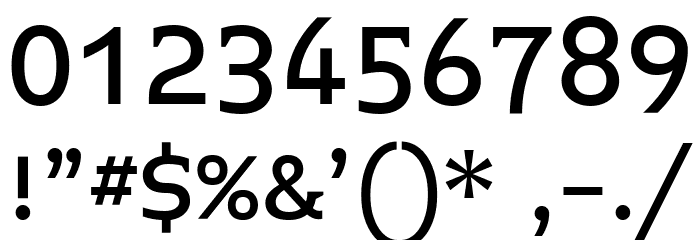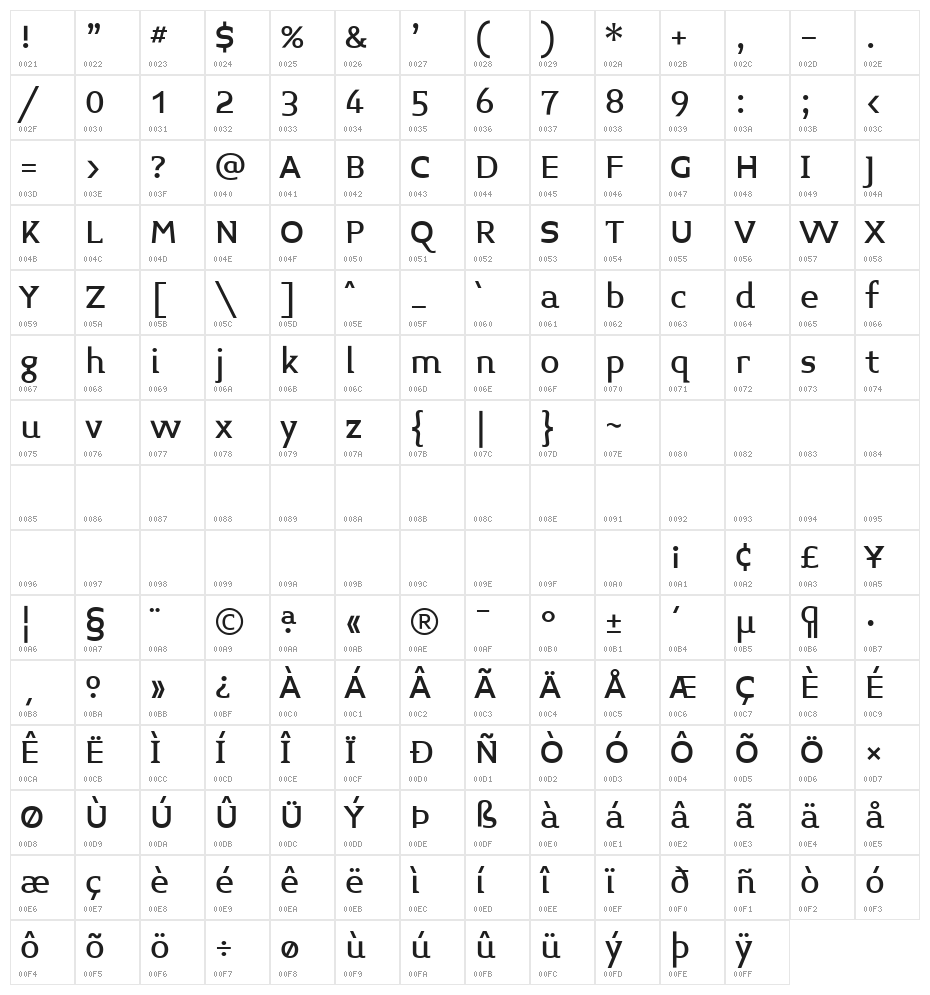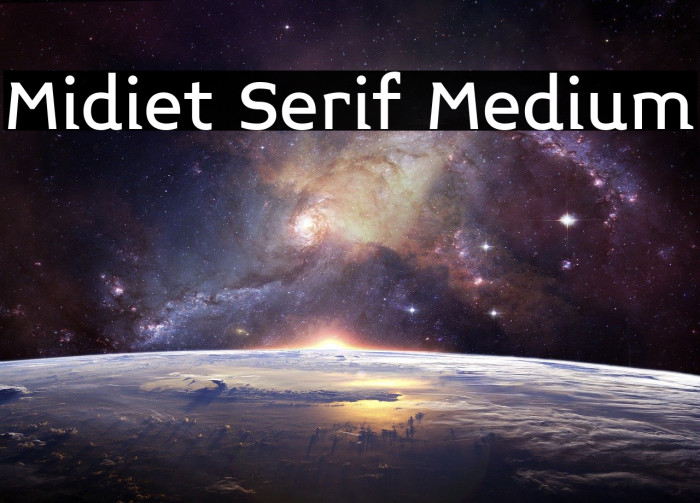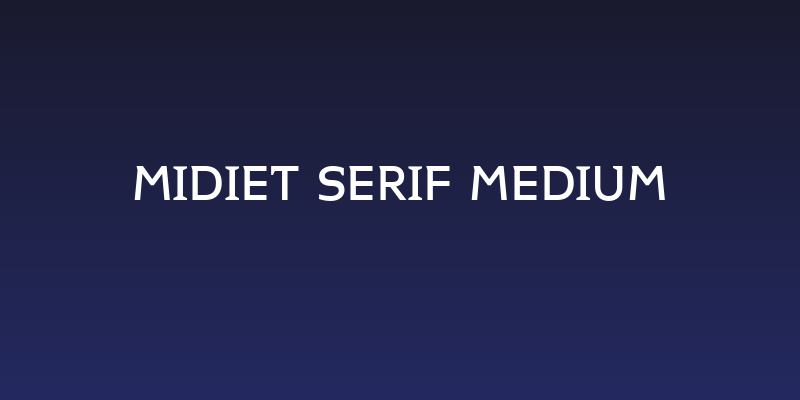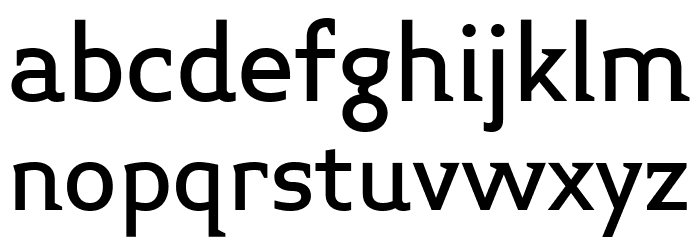
Midiet Serif Medium Font
Midiet Serif Medium Description
This font features a clean and modern serif style with medium weight, offering a balanced and readable appearance. The characters are well-proportioned, with slightly rounded edges that add a touch of softness to the overall design. The uppercase letters are bold and assertive, while the lowercase letters maintain a consistent flow, enhancing readability. The numerals are clear and distinct, making them suitable for various applications. Special characters are designed with precision, ensuring they complement the overall aesthetic. This font is versatile, suitable for both digital and print media, and can be used effectively in a variety of design projects.